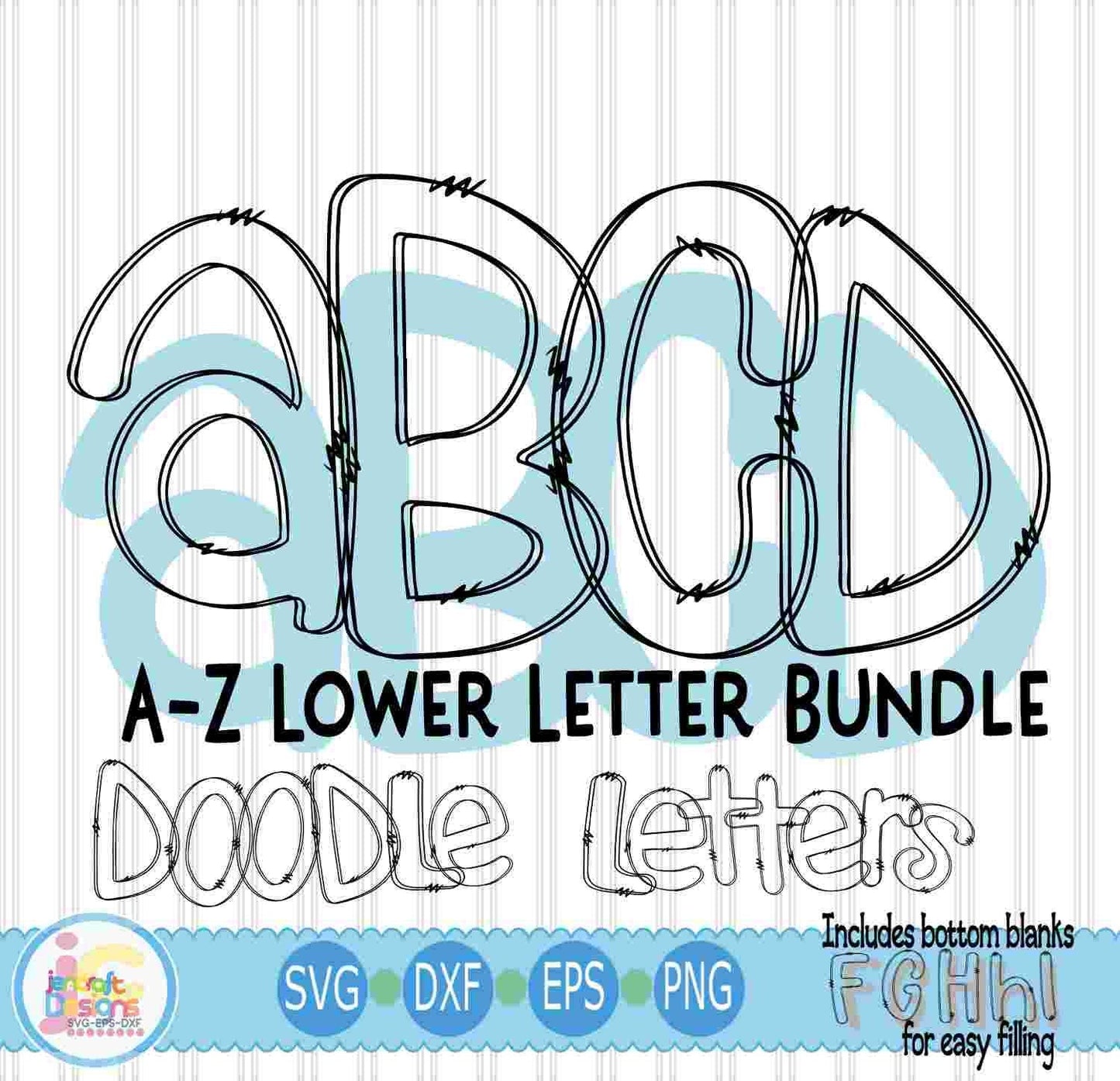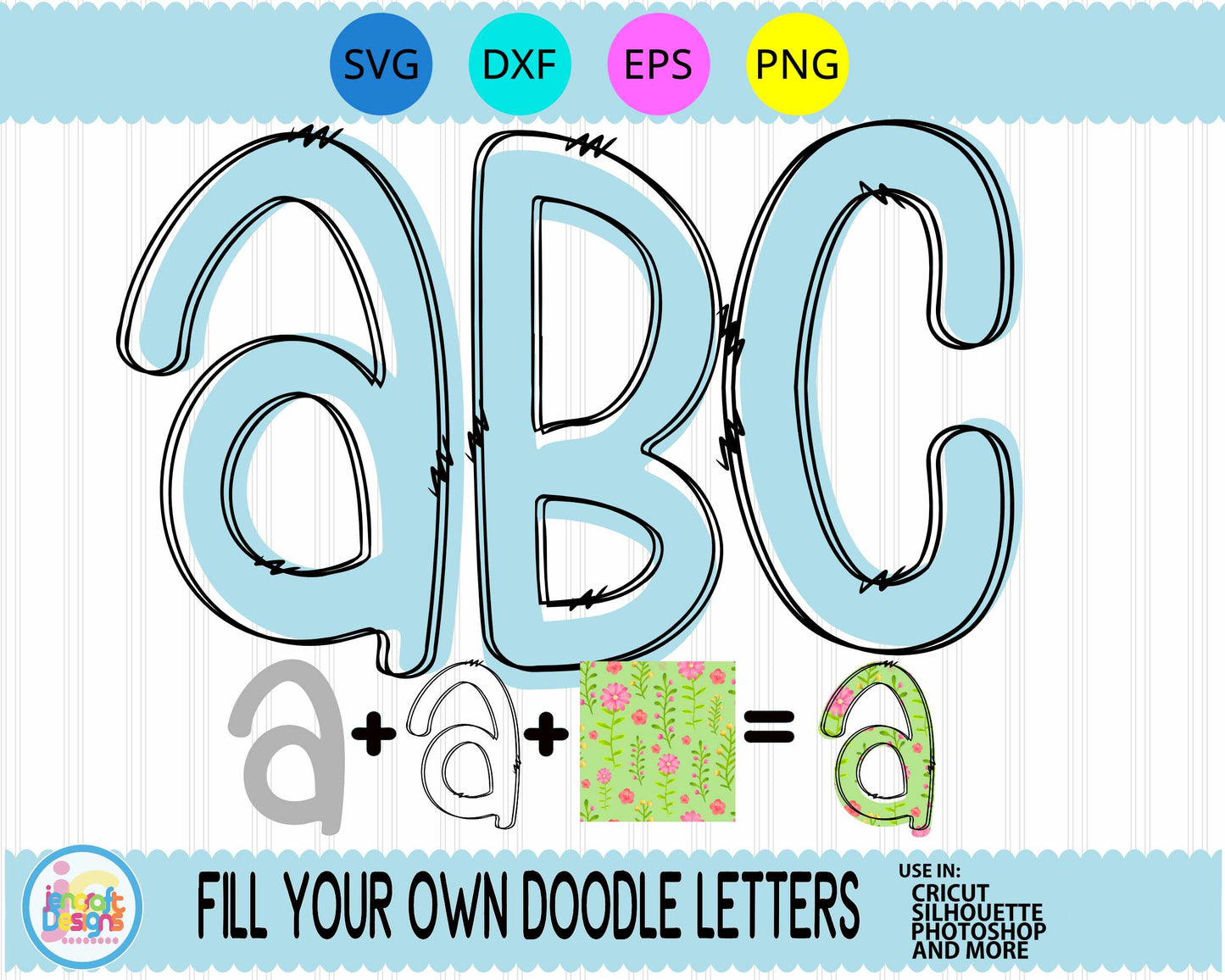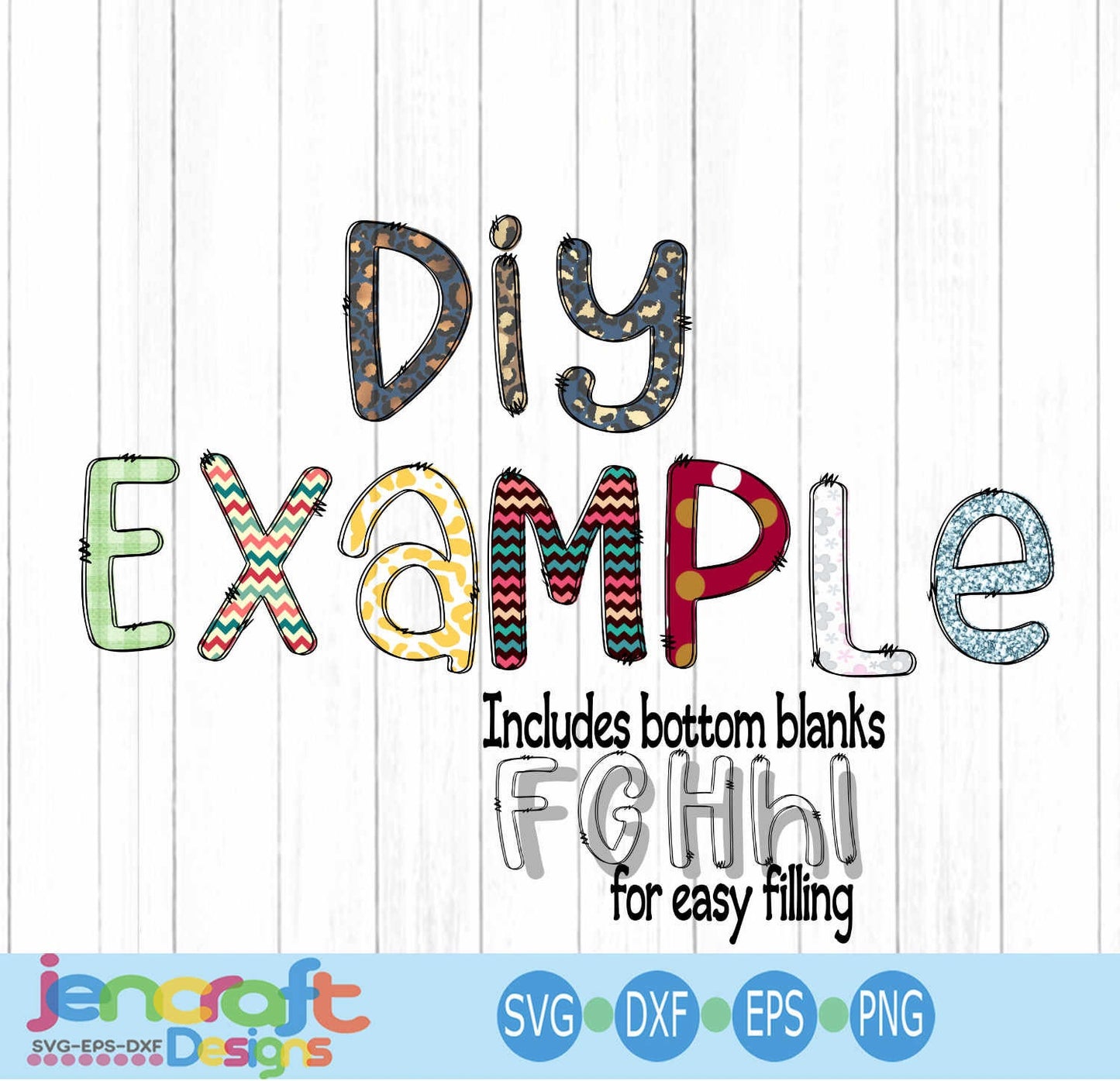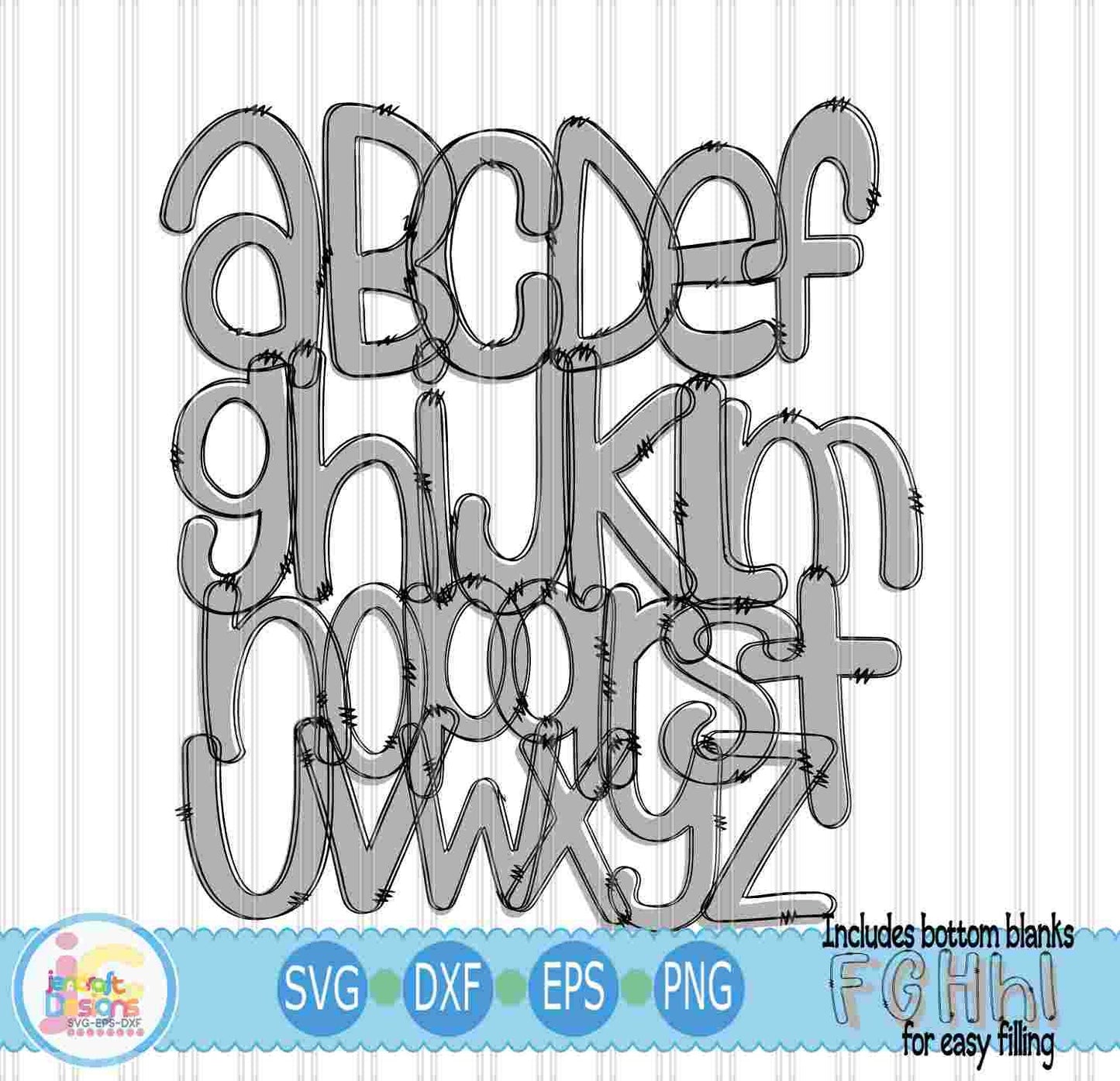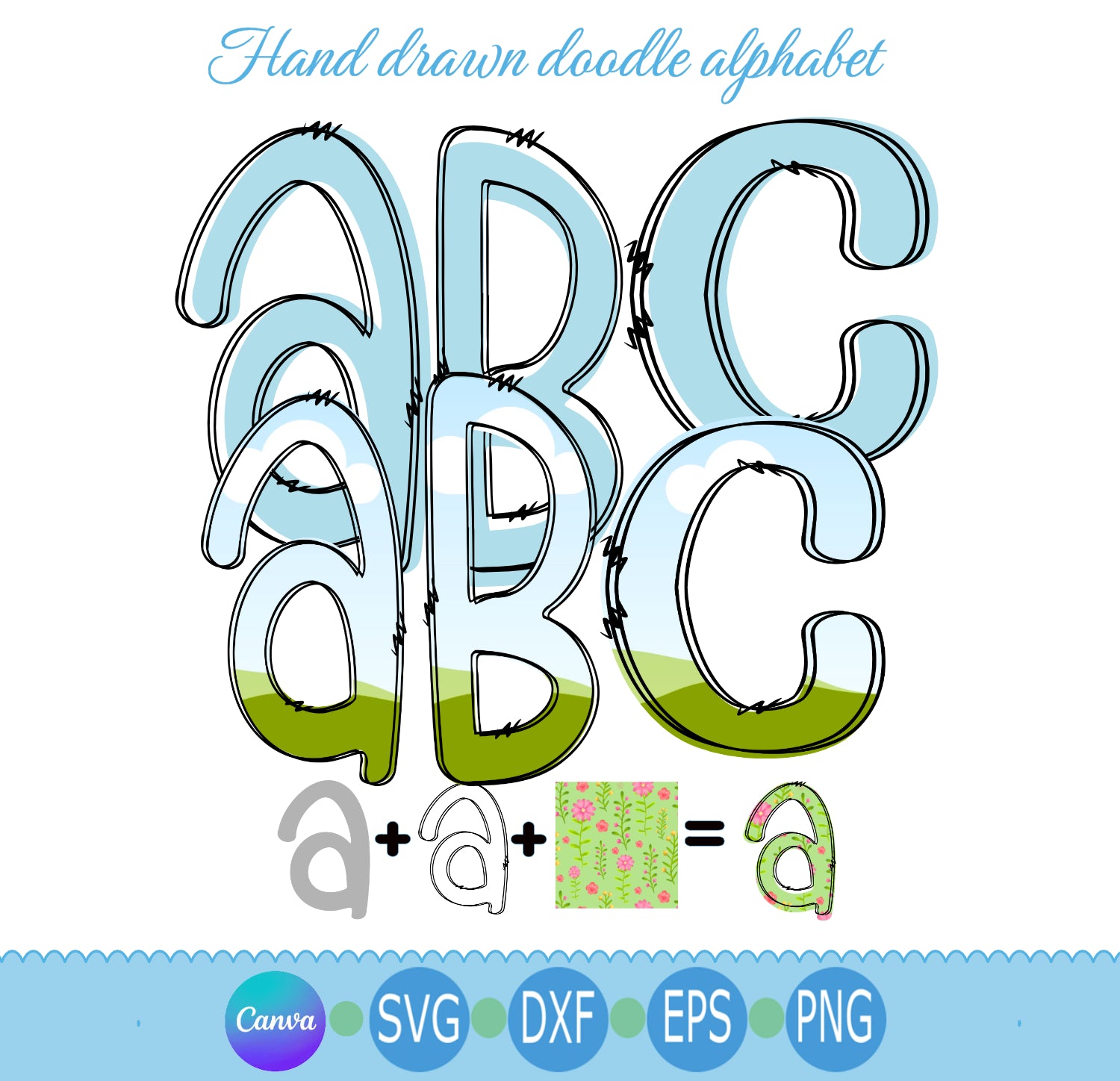
Blank Doodle Letters | Lowercase Alphabet Cut File Bundle SVG EPS DXF PNG
Customize to your heart’s content with this Blank Doodle Letters Lowercase Alphabet Bundle — a hand-drawn, unfilled letter set in SVG, EPS, DXF, and PNG formats, perfect for adding your own colors, patterns, and textures. Bonus Canva templates are included so you can start designing right away — no extra software needed! Great for Cricut, Silhouette, sublimation, and iron-on projects.
- Full lowercase a–z alphabet